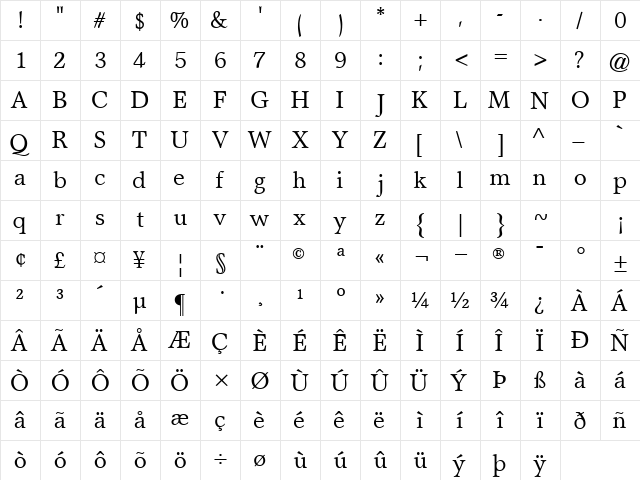
AxiomaticSSK Regular
Design Context for AxiomaticSSK Typeface
AxiomaticSSK offers clean, dependable letterforms without strong stylistic allegiance, making it a practical choice for designers who need flexibility.
Pro Tip: Pair AxiomaticSSK with a font of contrasting weight or personality to build a more expressive typographic hierarchy.